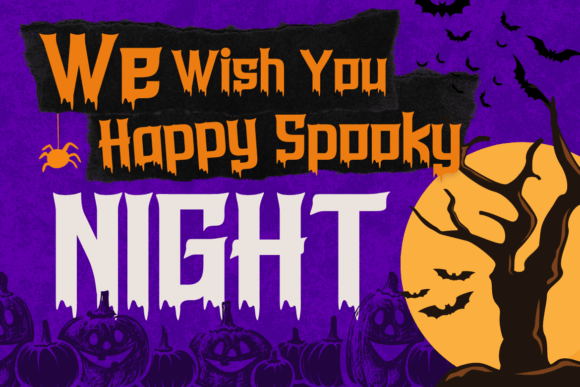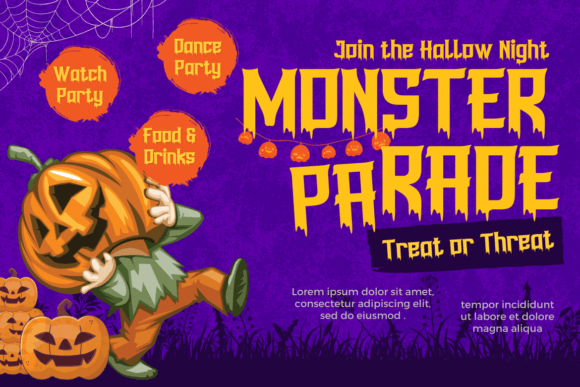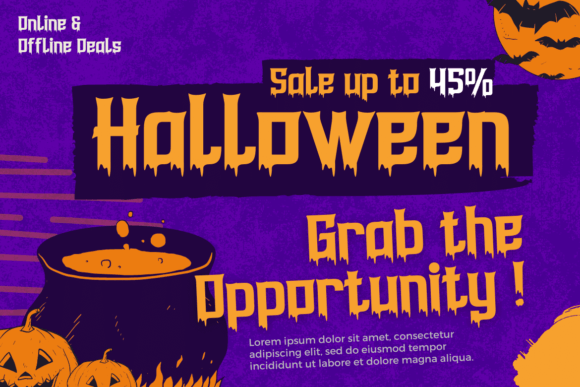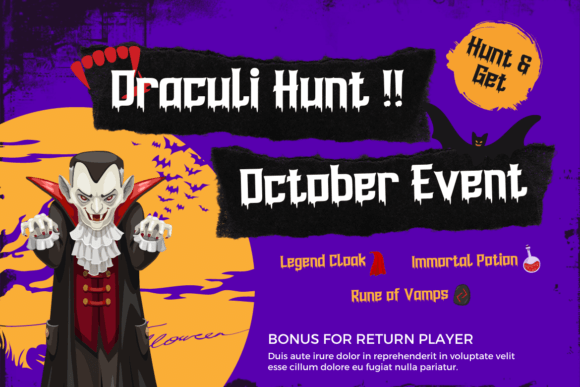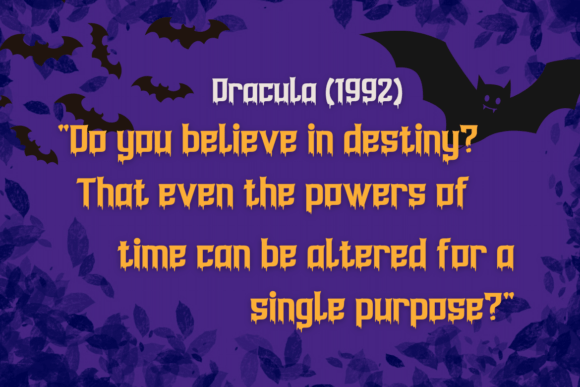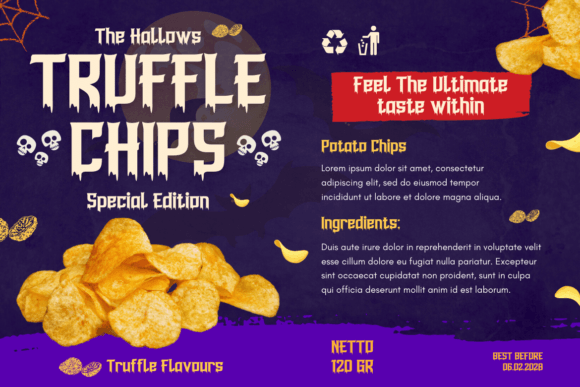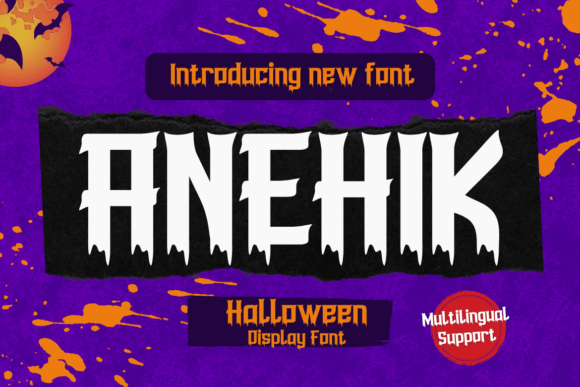
The Spooky Charm of Anehik Font: Elevate Your Halloween Designs
As a designer, I’ve had my fair share of late nights scrolling through font libraries, searching for that perfect typeface to bring my project to life. One particularly memorable night was when I was working on a Halloween party invitation. I wanted something that would capture the essence of the spooky season, but my usual go-to fonts just weren’t cutting it. That’s when I stumbled upon the Anehik font, a gem that instantly added a playful, eerie vibe to my design.
An Honest Review of Anehik Font
So, what makes Anehik font so special? Let’s dive into the good stuff and a few quirks I’ve noticed.
- ✨ Unique Halloween Spirit: Anehik font embodies the playful and spooky essence of Halloween, making it perfect for party invitations, decorations, and themed projects.
- ✅ Versatility: Despite its Halloween theme, Anehik can be used in a variety of contexts, from autumnal decorations to gothic-inspired designs.
- 🤔 Legibility at Small Sizes: Like many decorative fonts, Anehik can become less legible at very small sizes, which might limit its use for body text.
- ⚠️ Limited Language Support: If you’re working on a project that requires text in multiple languages, you might find Anehik’s language support to be somewhat limited.
The Inspiration Behind Anehik Font
The Anehik font was inspired by the playful and spooky atmosphere of Halloween. Its designer aimed to create a typeface that captures the essence of the season, with a mix of whimsical and eerie elements. The font’s unique design makes it perfect for a variety of Halloween-themed projects, from party invitations to decorations.
| Is Anehik font suitable for body text? | While Anehik is a beautiful font, it’s primarily designed for headings and titles. Its legibility at small sizes might be limited, making it less ideal for body text. |
| Does Anehik support OpenType features? | Yes, Anehik font supports OpenType features, including stylistic alternates and glyphs. Exploring these features can add more variety and creativity to your designs. |